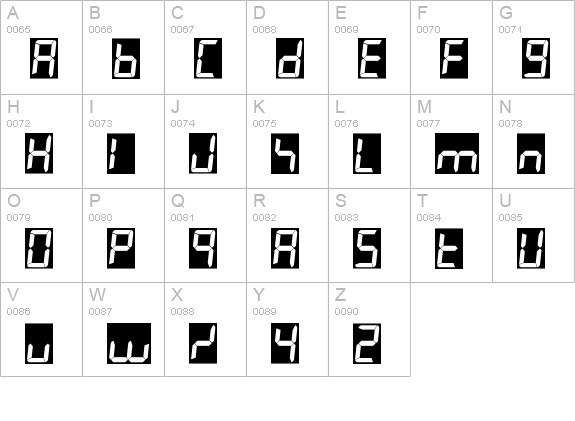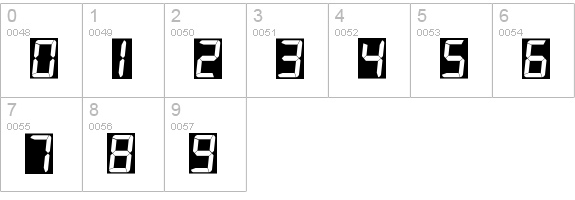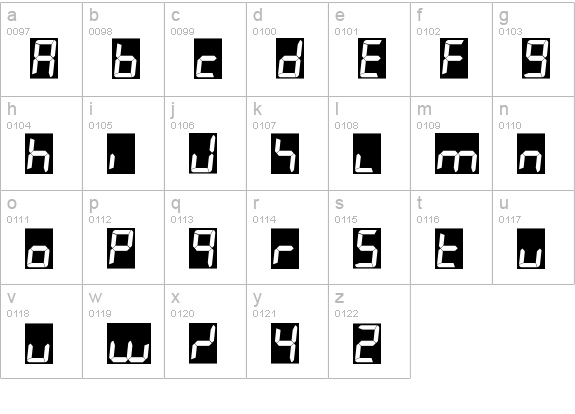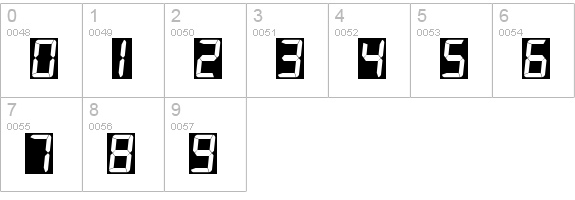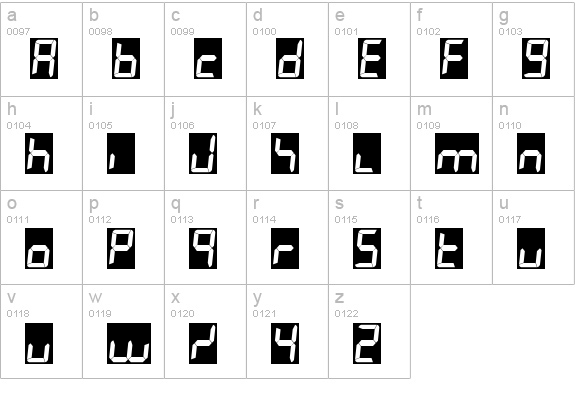
7LED italic is a distinctive, italic variant in the 7LED typeface family \xE2\x80\x94 well suited to design and typography projects.
The 7LED italic font is a visually striking and captivating typeface that is bound to leave a lasting impression on any design project. With its sleek and modern design, this font is perfect for adding a touch of sophistication and elegance to your creations. The italicized style of the 7LED font adds a sense of dynamic movement, making it ideal for projects that require a bold and eye-catching aesthetic. Whether you're designing a logo, creating a poster, or crafting a website, this font will effortlessly elevate your designs to new heights. One of the best parts about the 7LED italic font is that it is available for free download at FontsMarket.com. This means that you can easily access and use this font in your projects without worrying about any additional costs. It's a fantastic opportunity to add a high-quality and professionally designed font to your collection without breaking the bank. Not only is the 7LED italic font visually stunning, but it is also incredibly versatile. Its clean lines and modern aesthetic make it suitable for a wide range of design projects, from fashion and beauty to technology and gaming. No matter what industry or style you're working in, this font will undoubtedly make a powerful statement and help you stand out from the crowd. So why wait? Enhance your designs with the captivating 7LED italic font, available for free download at FontsMarket.com. Don't miss out on this opportunity to add a touch of elegance and sophistication to your projects without spending a dime. Download the 7LED italic font today and let your creativity soar.